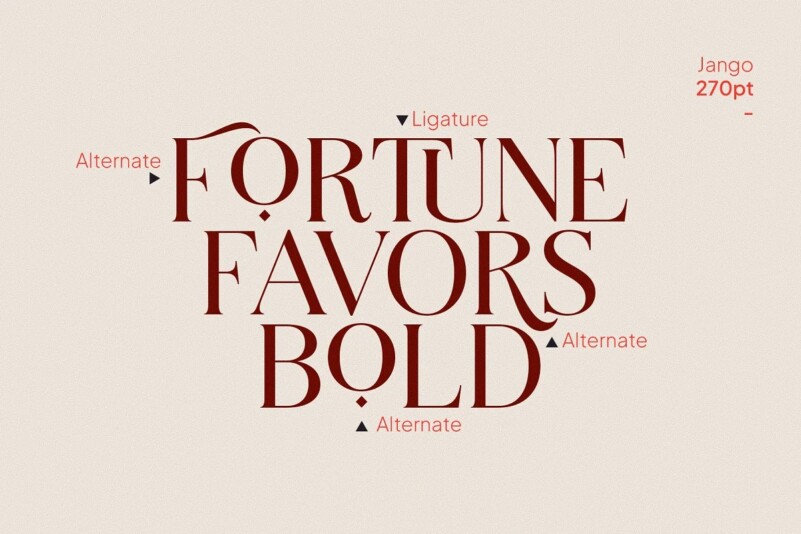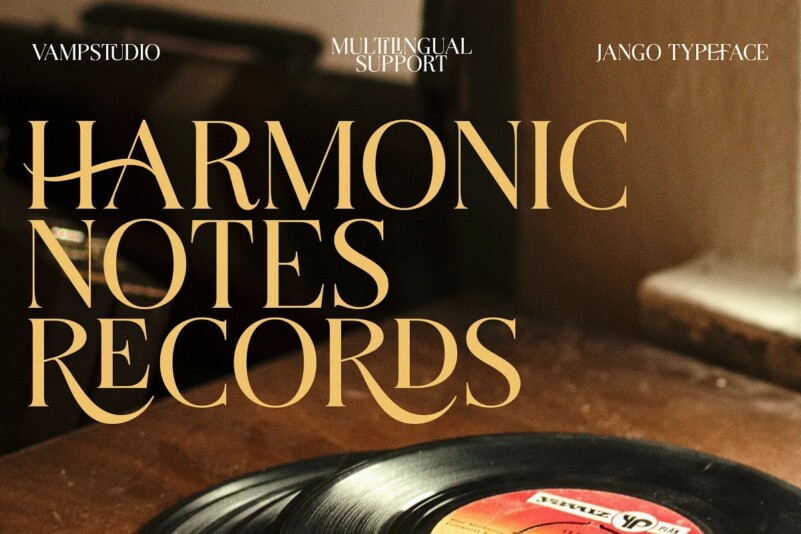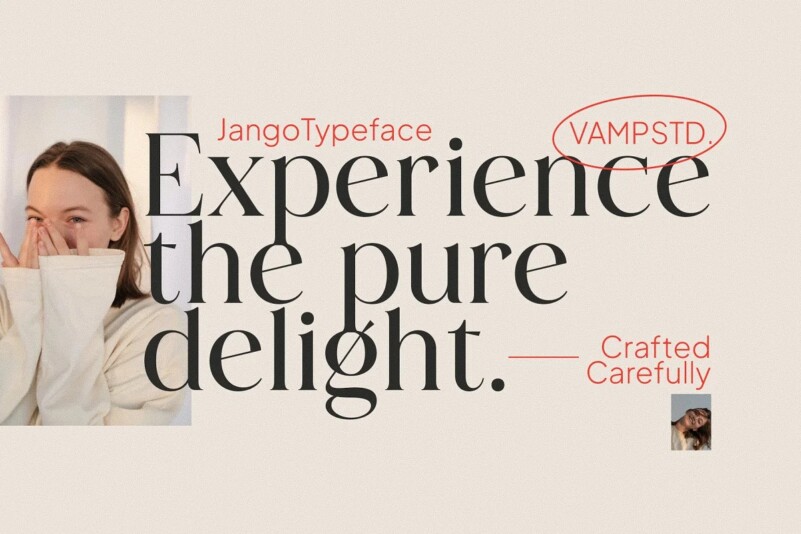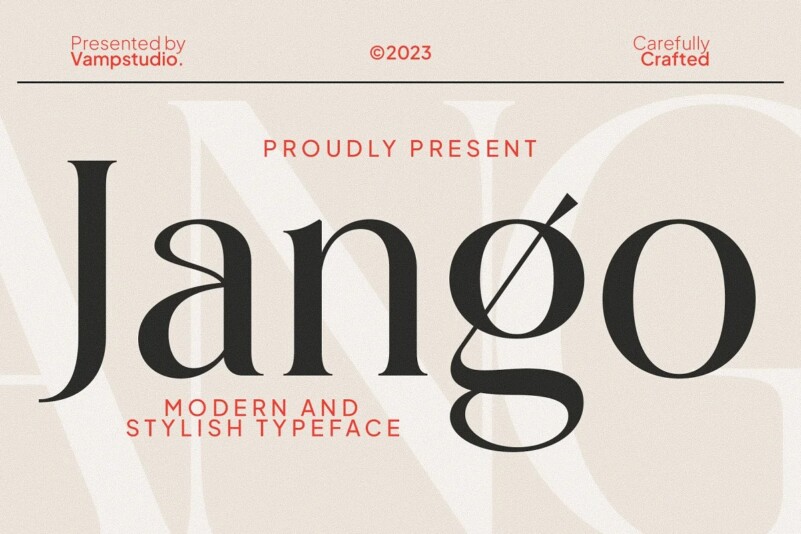
Jango Font
Jango Font is a serif font created by Vampstudio with a fancy, playful, unique, and versatile vintage style. Specially designed by skilled hands makes this font is the perfect fit for all your big projects.
Jango is perfect for branding projects, logo, wedding designs, social media posts, advertisements, product packaging, product designs, label, photography, watermark, invitation, stationery and any projects that need luxury and modern taste.